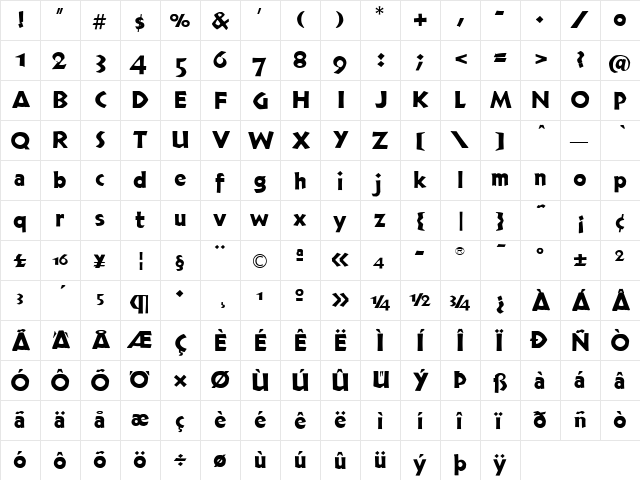
TFNeueneulndDemiOsf Normal Font Preview
TFNeueneulndDemiOsf Normal
TFNeueneulndDemiOsf Normal Font Details
Design Context for TFNeueneulndDemiOsf Typeface
TFNeueneulndDemiOsf is a composed and adaptable typeface that performs quietly and consistently across a wide range of design contexts.
Pro Tip: Use TFNeueneulndDemiOsf in both headline and body roles to test its range before committing to a single application.